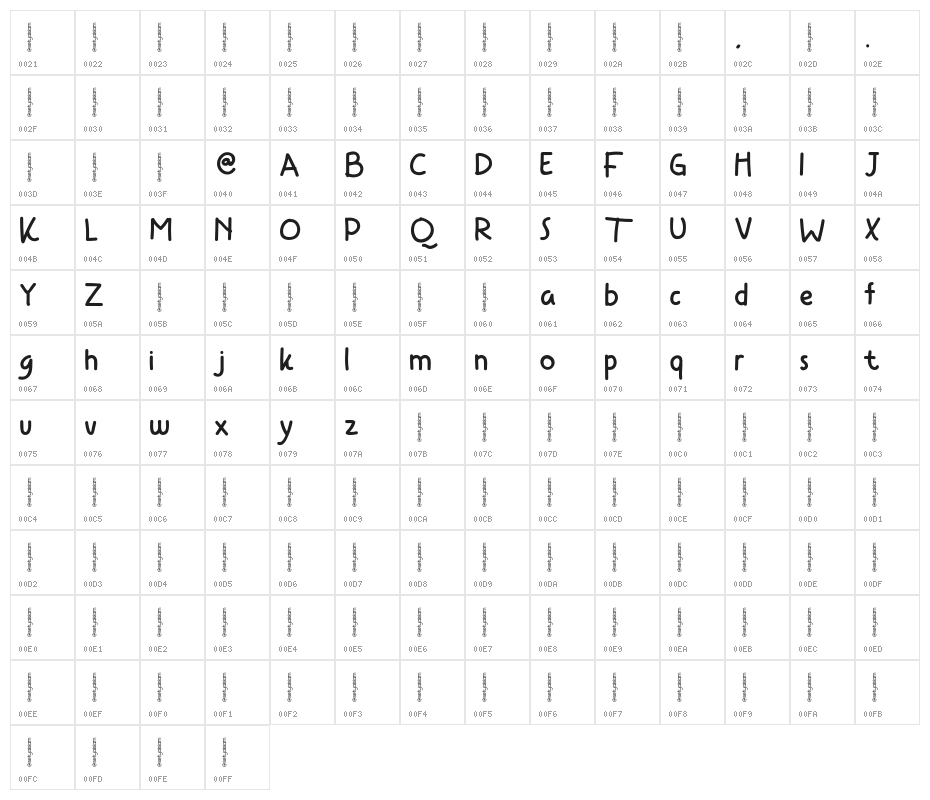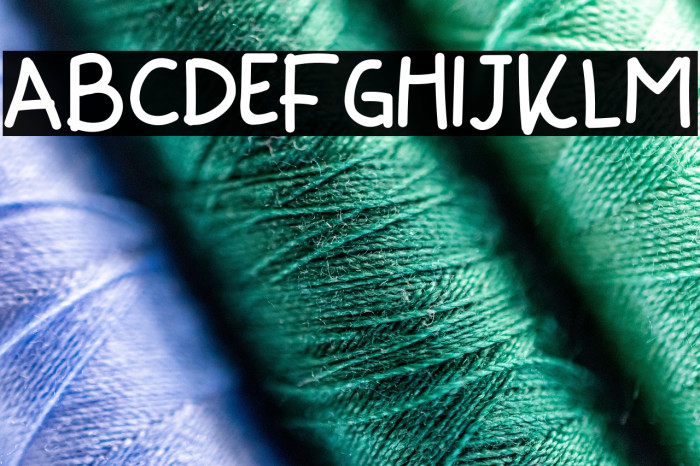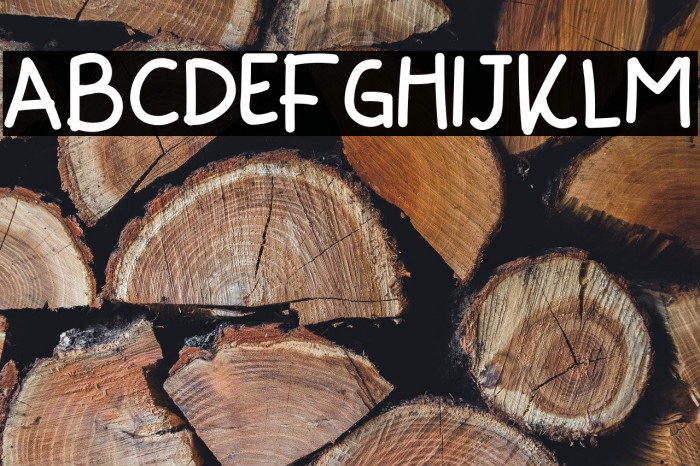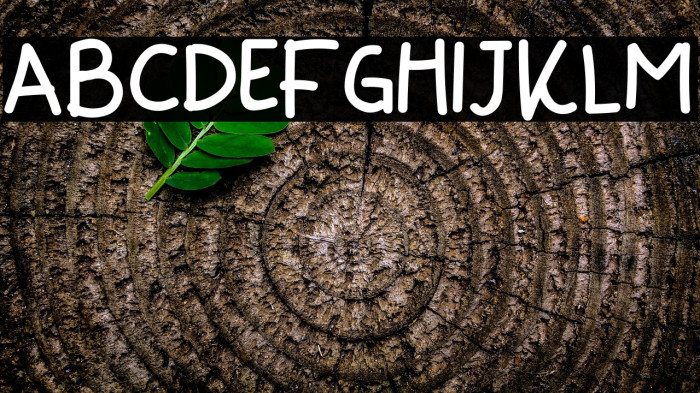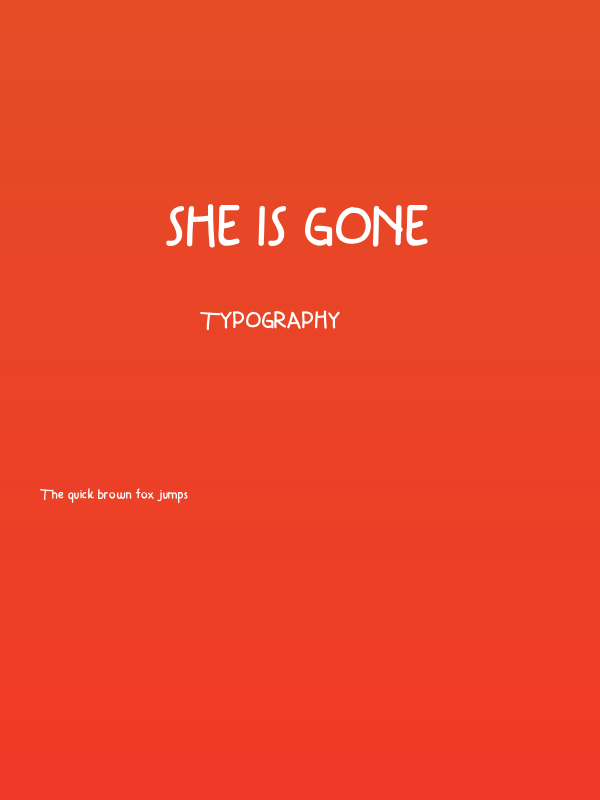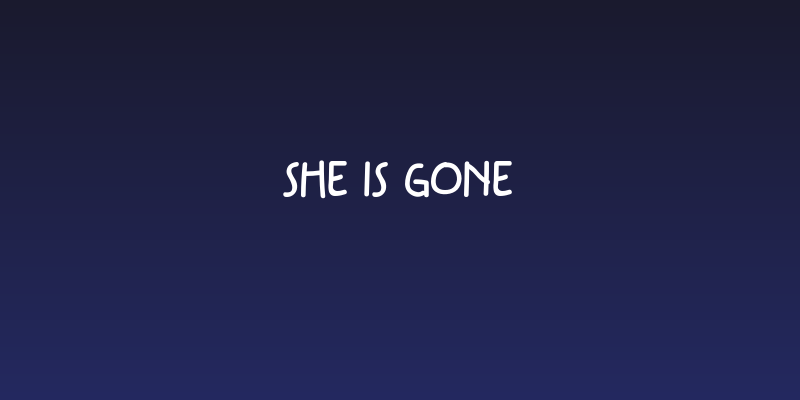
She Is Gone Font
She Is Gone Description
This font features a playful and casual handwritten style, characterized by its smooth, rounded edges and slightly irregular letterforms. The uppercase letters are bold and prominent, while the lowercase letters maintain a consistent flow, enhancing readability. The numbers and special characters are designed to match the overall aesthetic, providing a cohesive look. The font's informal nature makes it suitable for projects that require a personal touch, such as invitations, greeting cards, or creative branding. Its simplicity and charm are appealing, making it versatile for various design needs.
| Proposed Projects | Ideal for invitations, greeting cards, creative branding, and personal projects. |